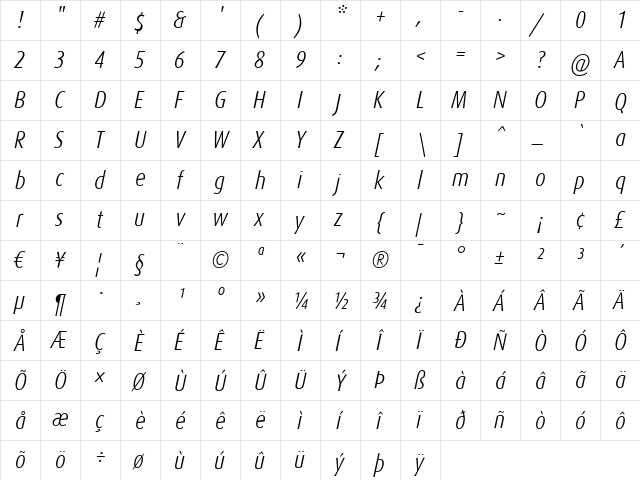
DaxCondensed-LightItalic Regular Font Preview
| Foundry | Hans Reichel, published by Fontshop International for the FontFont library |
Design Context for DaxCondensed-LightItalic Typeface
DaxCondensed-LightItalic takes a measured approach to typography — its balanced proportions and neutral character make it a reliable workhorse for both digital and print work. The dynamic lean of this cut emphasises speed and emphasis in any layout. Its slender proportions lend an understated elegance to any composition. Its narrow stance lets it pack a punch even in space-constrained designs.